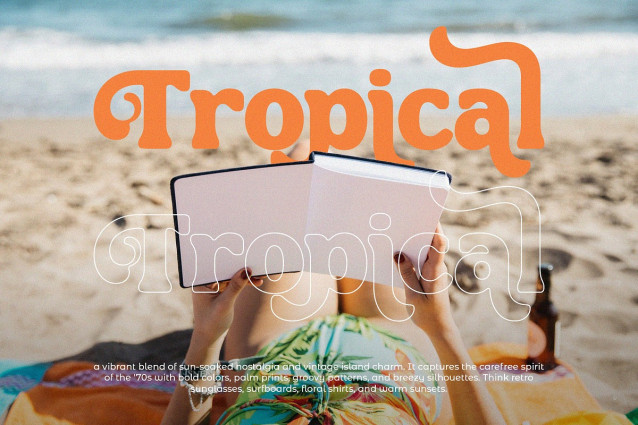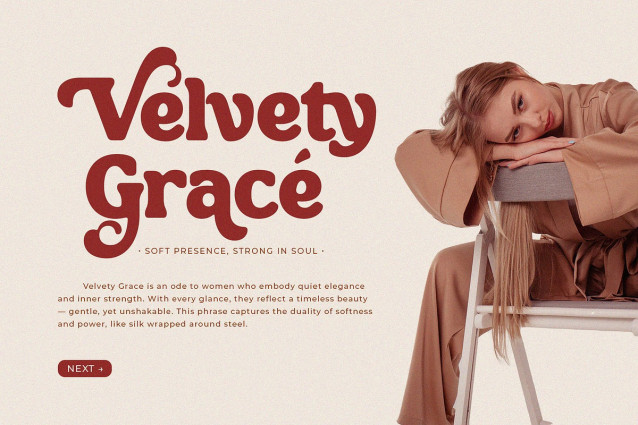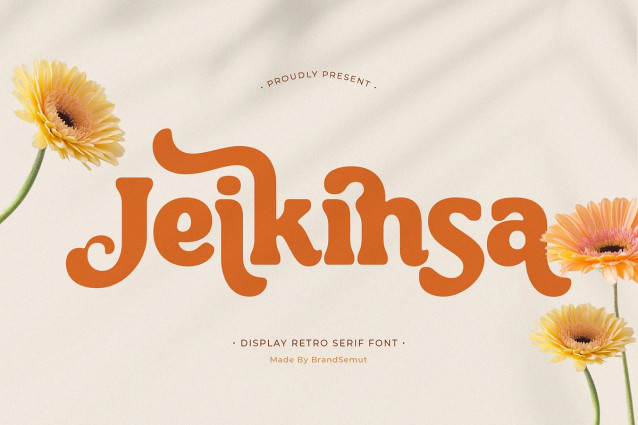
Jeikinsa Retro Font
Jeikinsa Retro Font is a bold and stylish retro display serif font that brings back the nostalgic charm of vintage typography with a modern twist. Featuring smooth curves, unique letterforms, and playful retro vibes, Jeikinsa is perfect for designs that need a touch of personality, warmth, and creativity.
Inspired by 70s retro aesthetics, this typeface blends groovy shapes with bold serif details, making it versatile for both modern and vintage-inspired projects. Jeikinsa is the ideal font for branding, packaging, posters, editorial layouts, and social media graphics. Its distinct character ensures that your design stands out with a bold retro look.